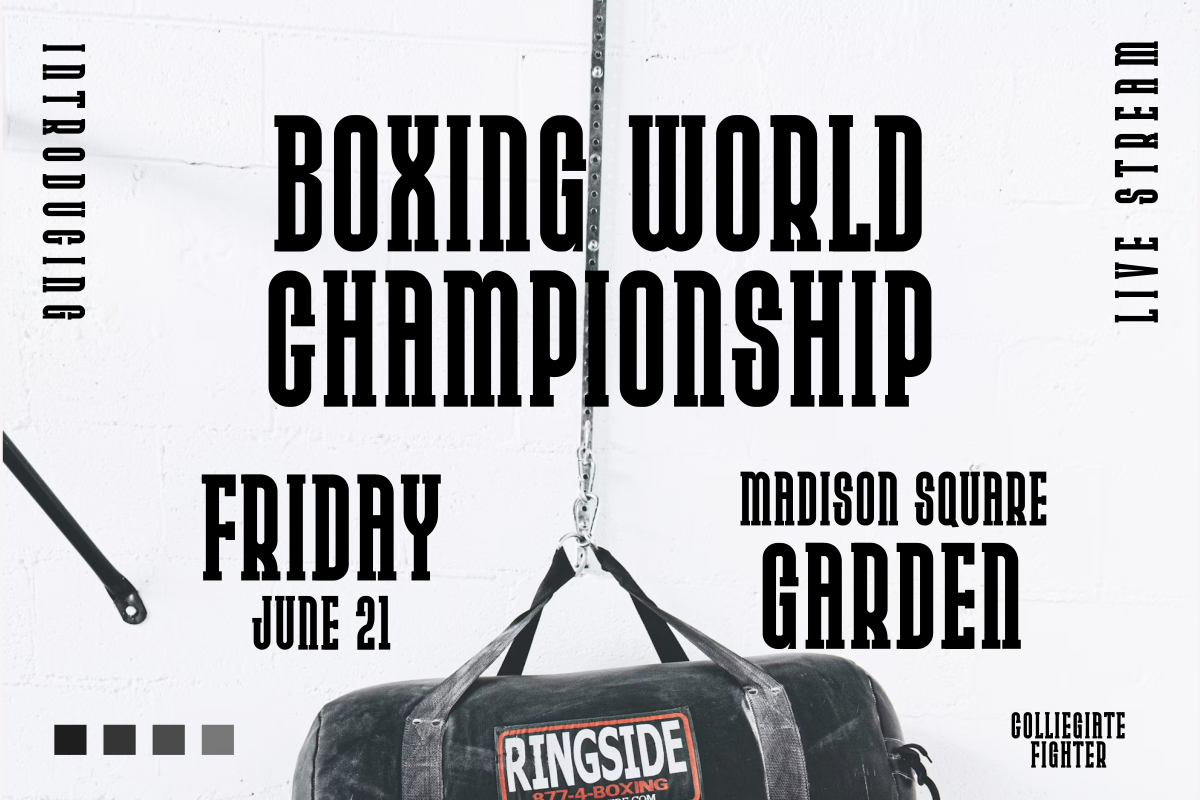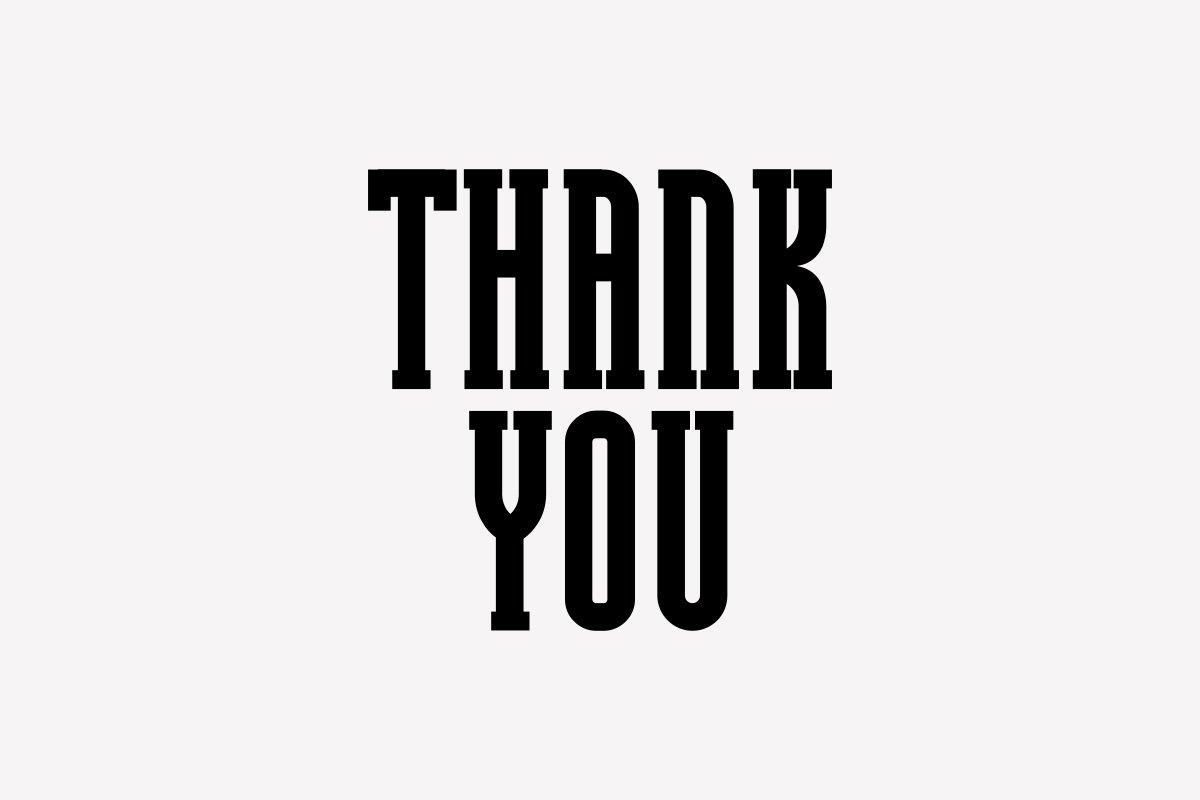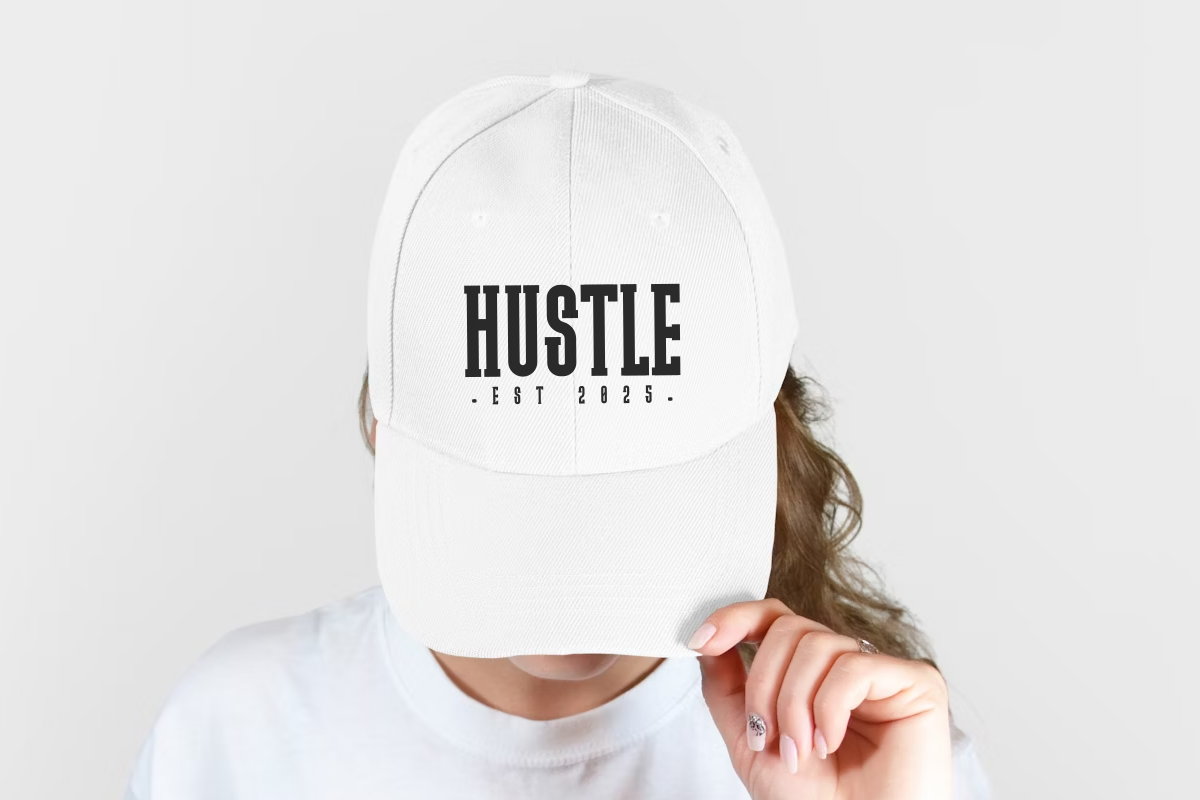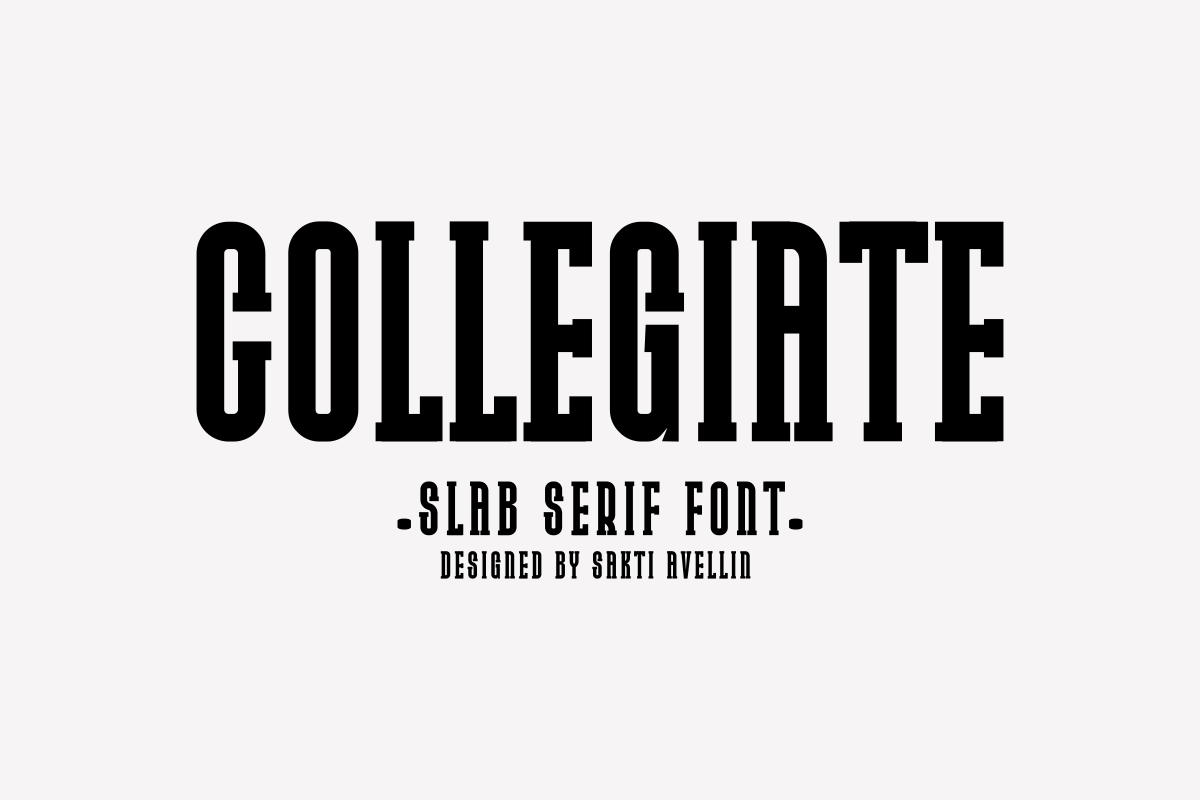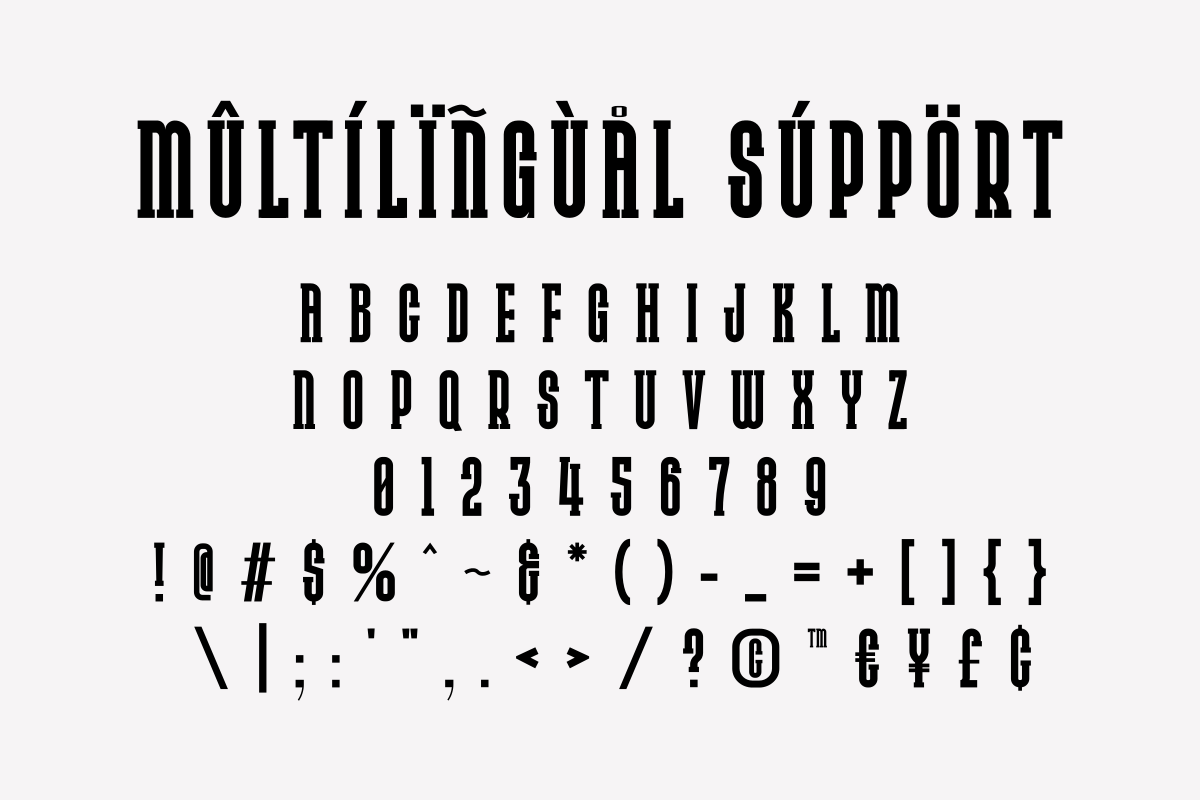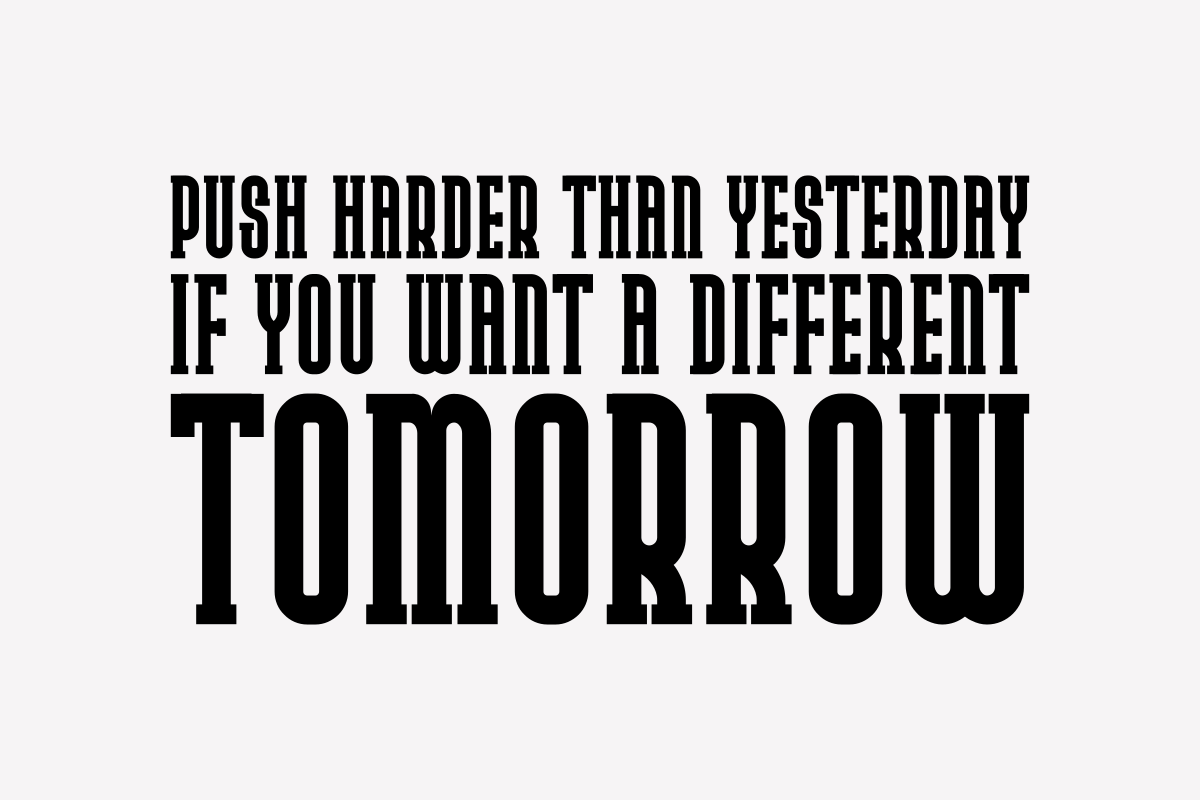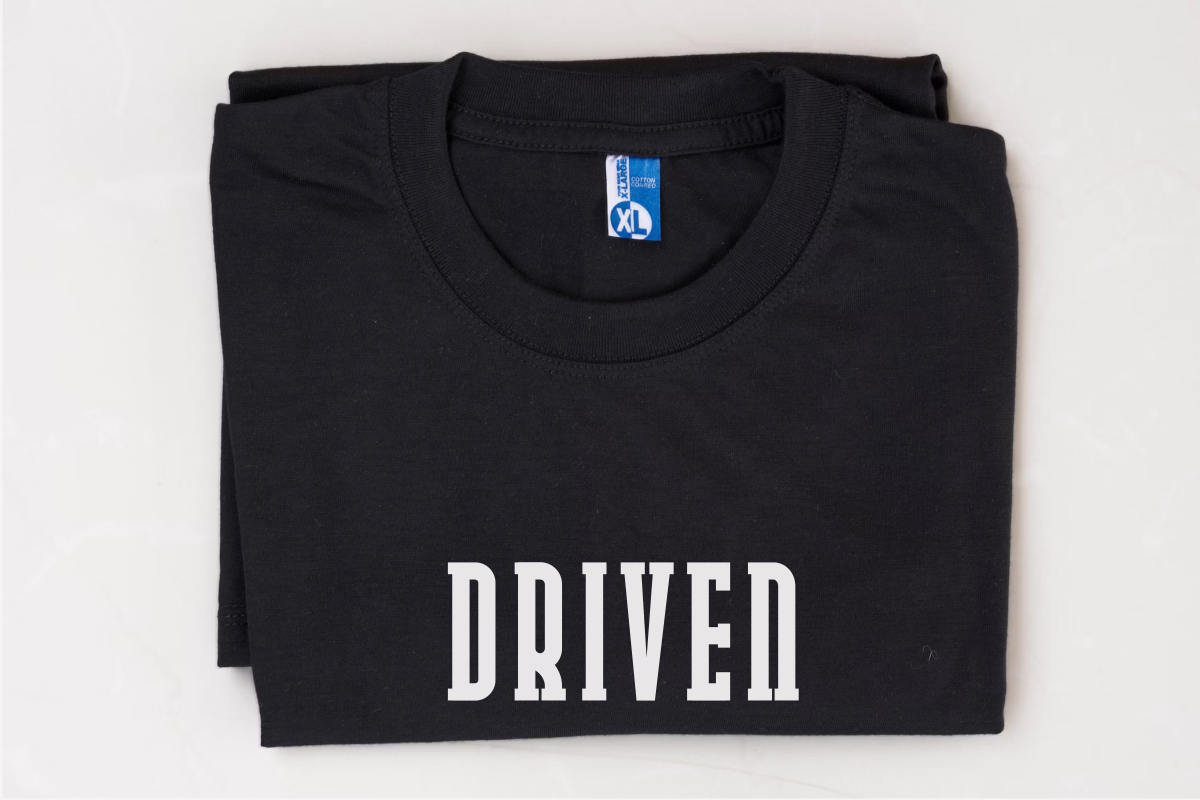
Collegiate - Slab Serif Font
Collegiate is a bold, high-impact slab serif font designed to bring a classic university and athletic energy to your creative projects. This powerful sports typeface features strong block serifs and tall, authoritative letterforms, making it an essential choice for varsity branding, team apparel, jersey designs, and campus-themed posters. Its commanding silhouette ensures it stands out as a leading display font for headlines and athletic marketing, perfect for designers looking for a mix of traditional academic vibes and modern sports aesthetics. Command attention with the competitive and timeless spirit of Collegiate!